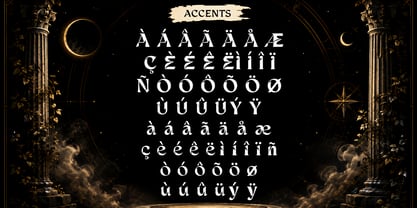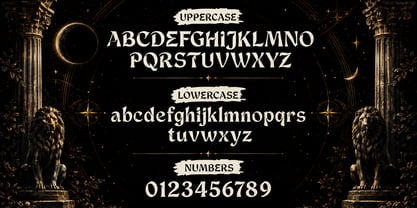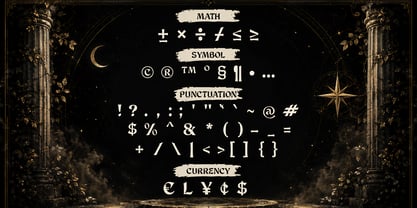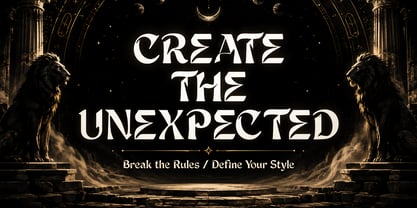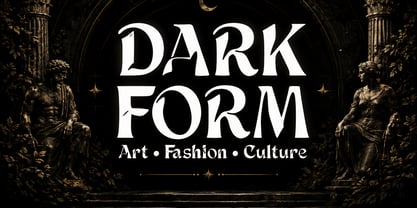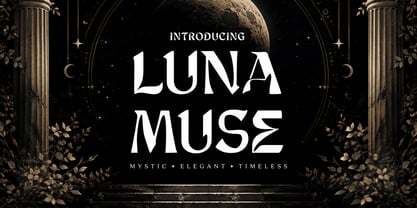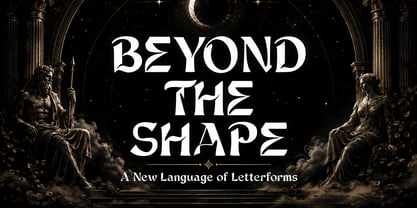
Luna Muse
Die Schriftfamilie Luna Muse wurde von Wahyu Eka Prasetya, Mei Suseno entworfen und von Mei Suseno veröffentlicht. Luna Muse enthält 2 Stile und Familienpaketoptionen. Mehr über diese Familie
Luna Muse is a bold experimental display typeface that blends sharp geometric forms with expressive, unconventional letter structures. Its distinctive cuts, angular details, and dramatic curves create a striking visual identity with a dark, artistic character.
Designed for projects that demand attention, Luna Muse works beautifully for fashion branding, album covers, posters, editorial design, logos, packaging, headlines, and contemporary visual identities. The Regular and Slant styles offer flexibility, allowing designers to create compositions ranging from sophisticated and mysterious to edgy and rebellious.
With its unique letterforms and strong personality, Luna Muse is made for designers who want to break conventional typography and create something unforgettable.